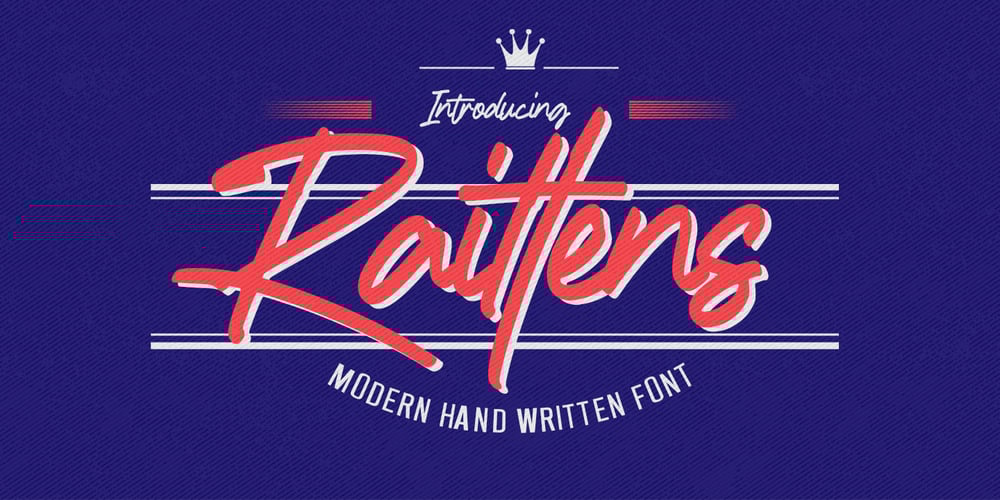
Raittens
Raittens Font Family was designed by Abdul Malik Wisnu, Anang Fibriyanto and published by Gassstype. Raittens contains 1 styles and family package options. Introducing Raittens is Modern Handwritten Font is a Authentic Style and classy style, Raittens a natural handwritten feel. This handmade font will make your design has a beautiful natural touch for each details. It is perfect for any design project as Invitation,logo, book cover, craft or any design purposes,photography overlays, signs, window art, scrapbooking, tags and so much more!This font is PUA encoded which means you can access all of ligatures.